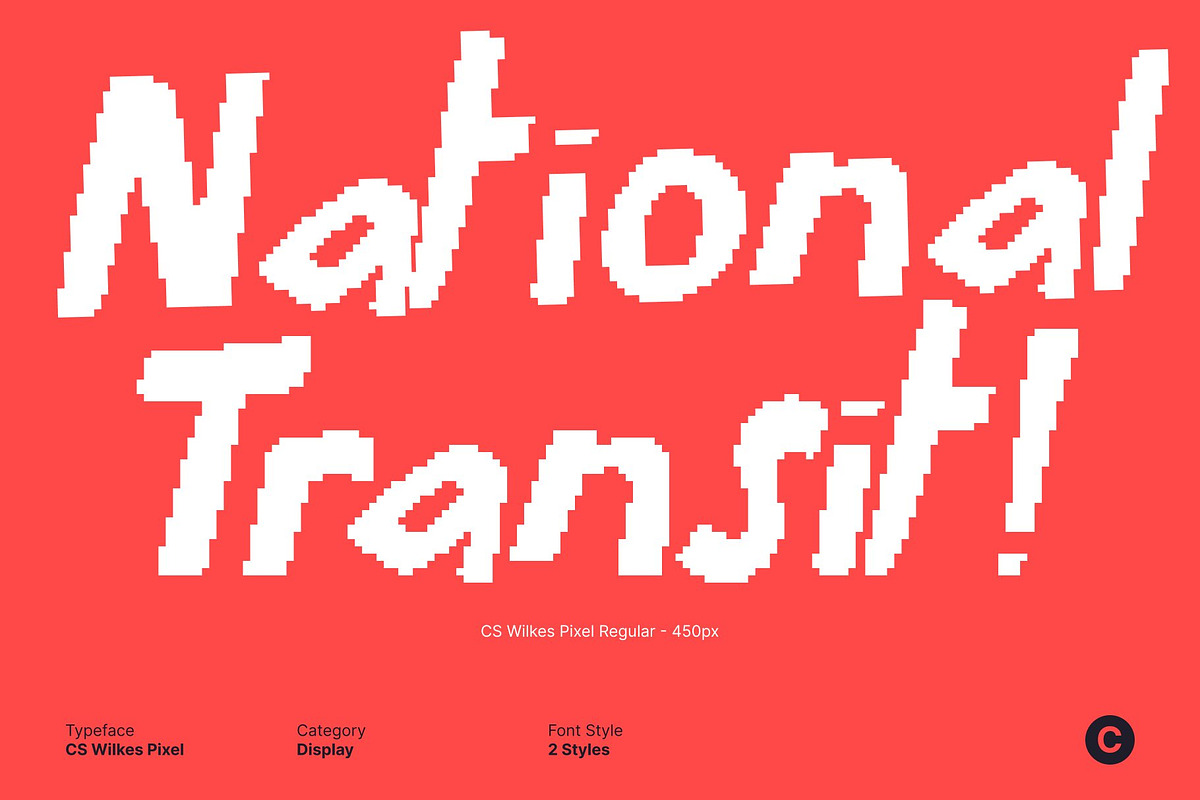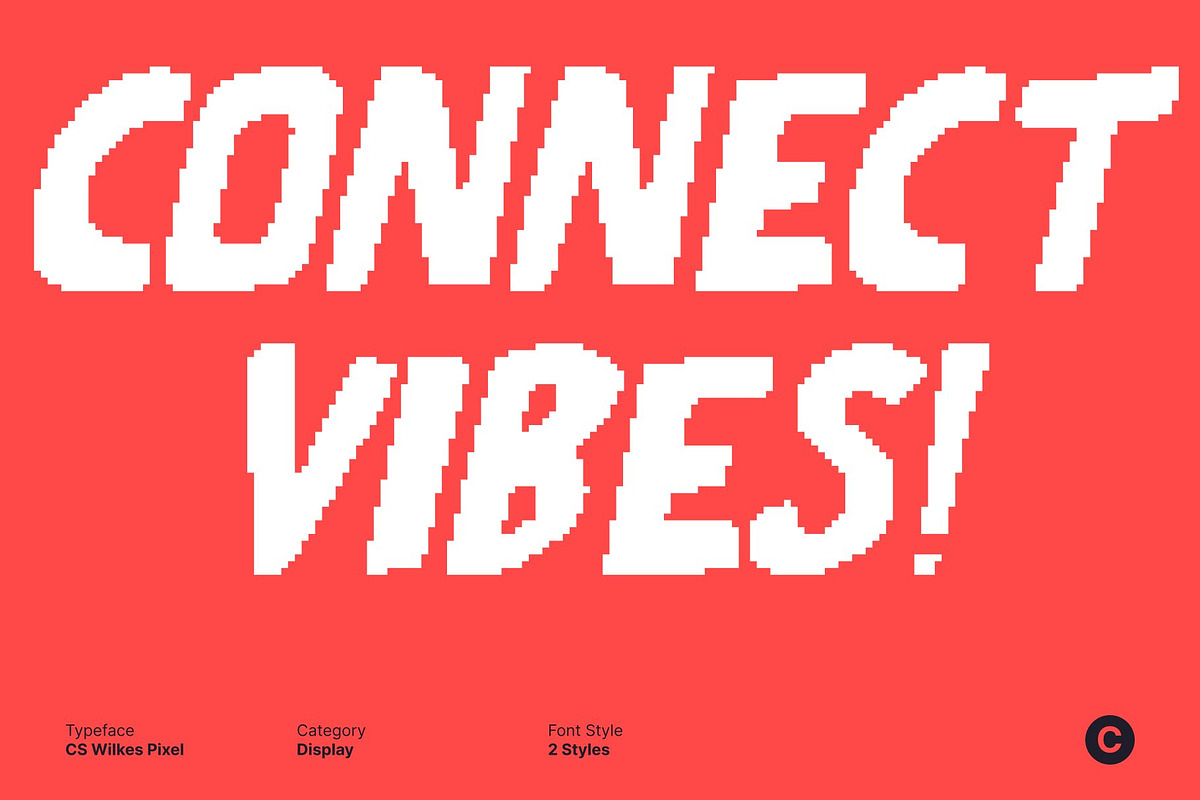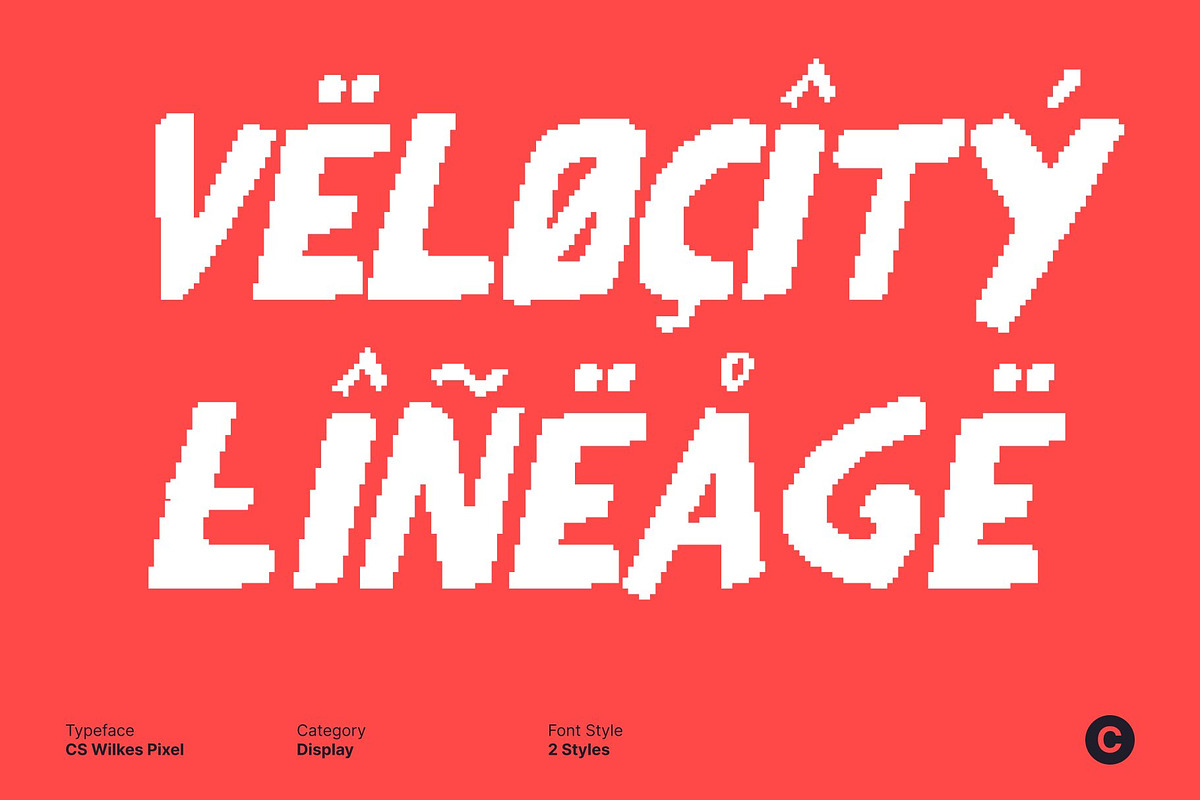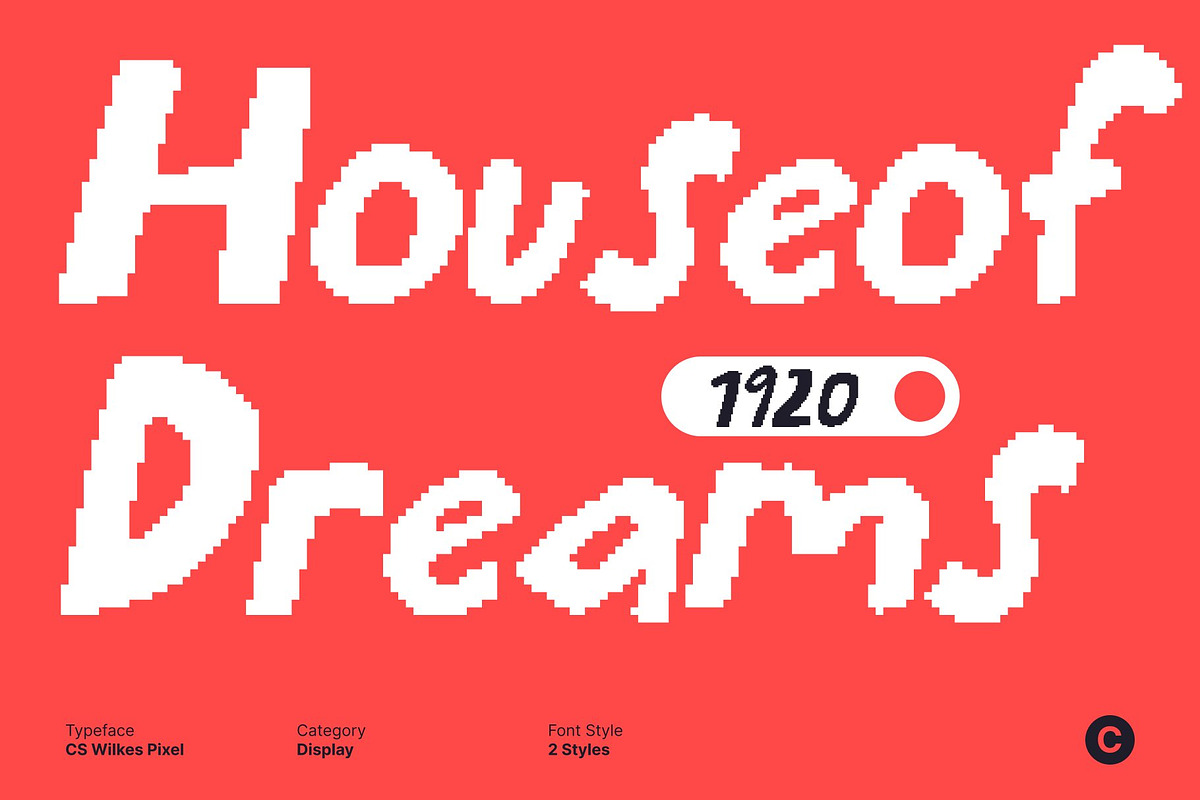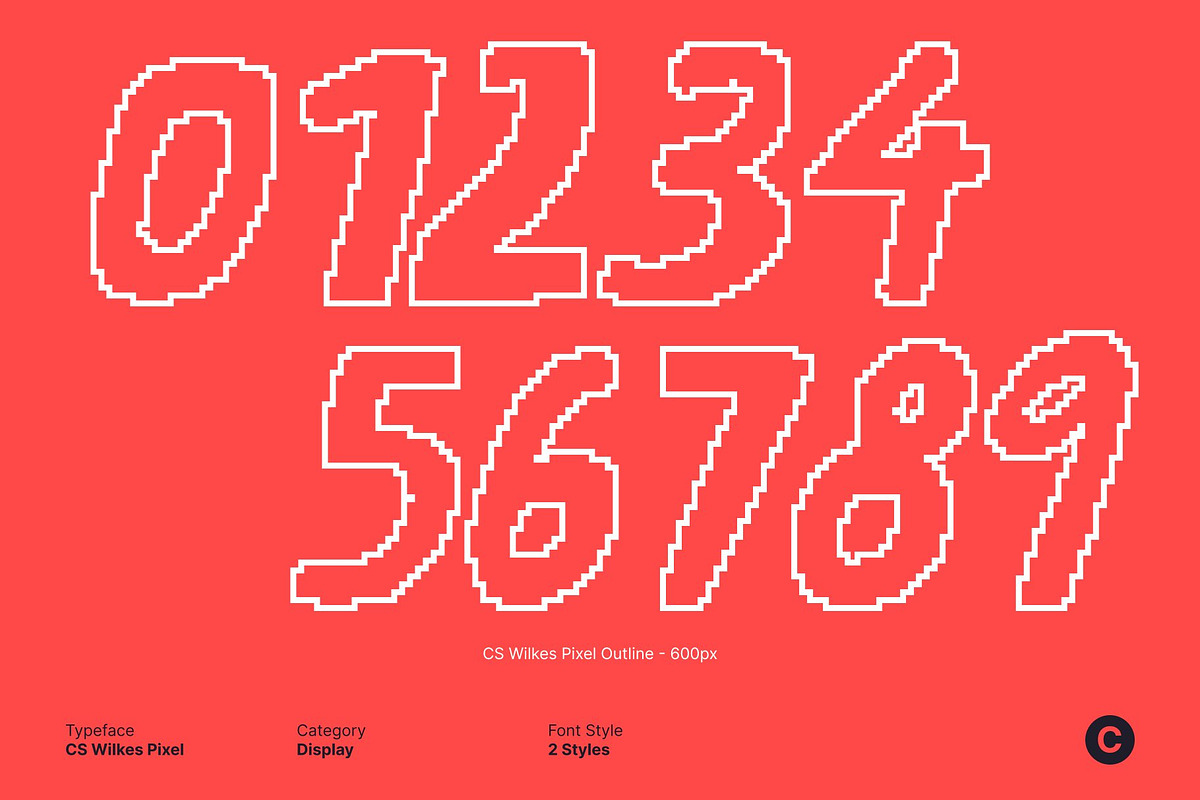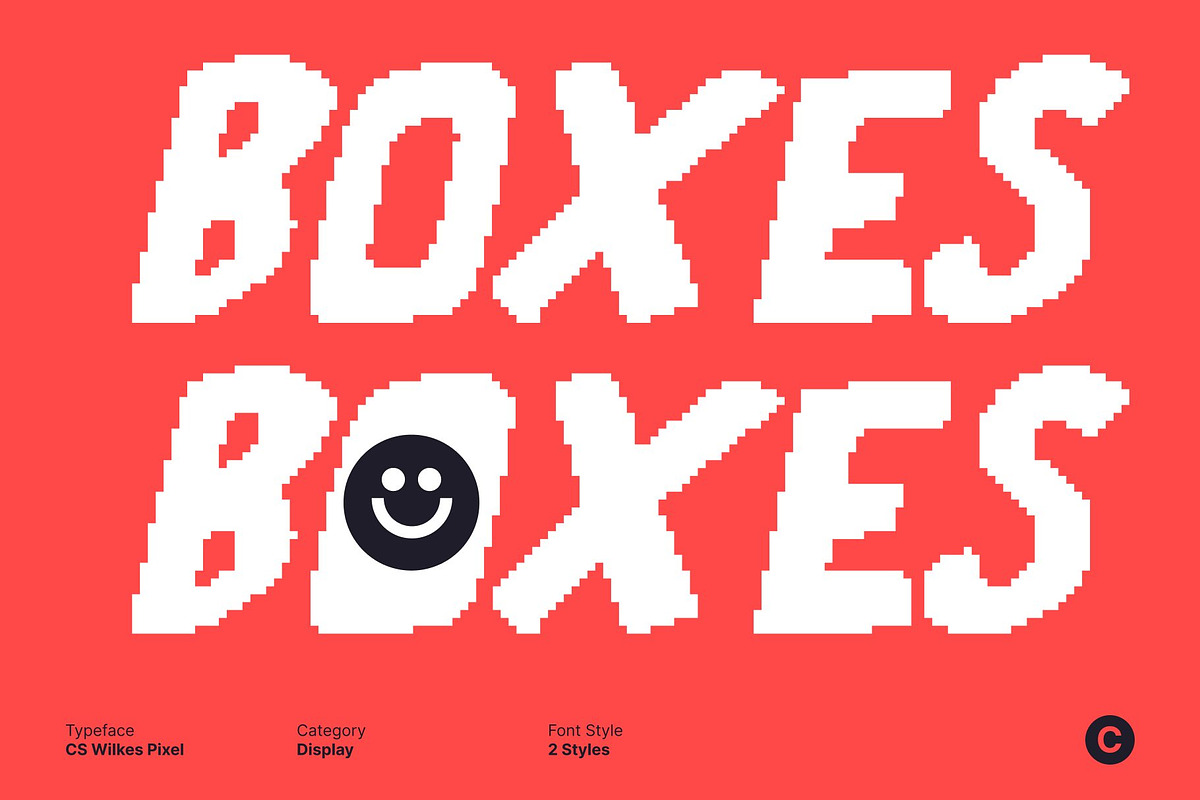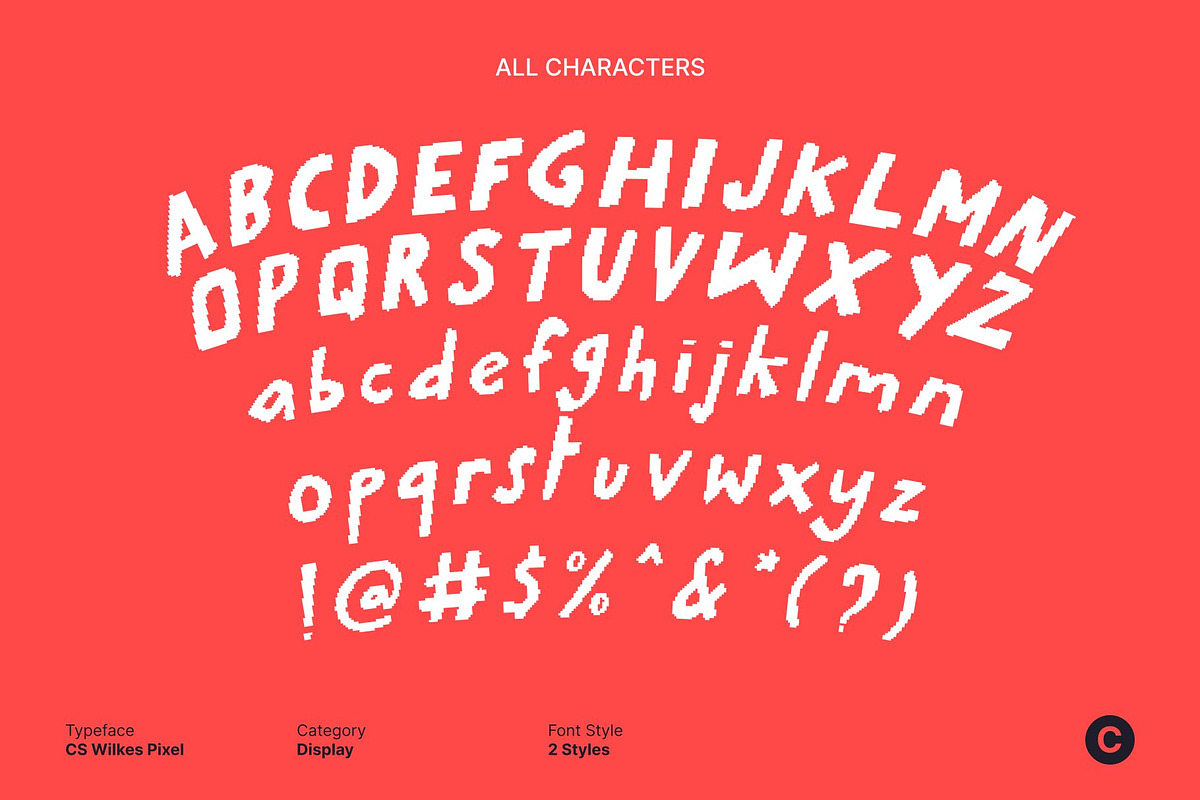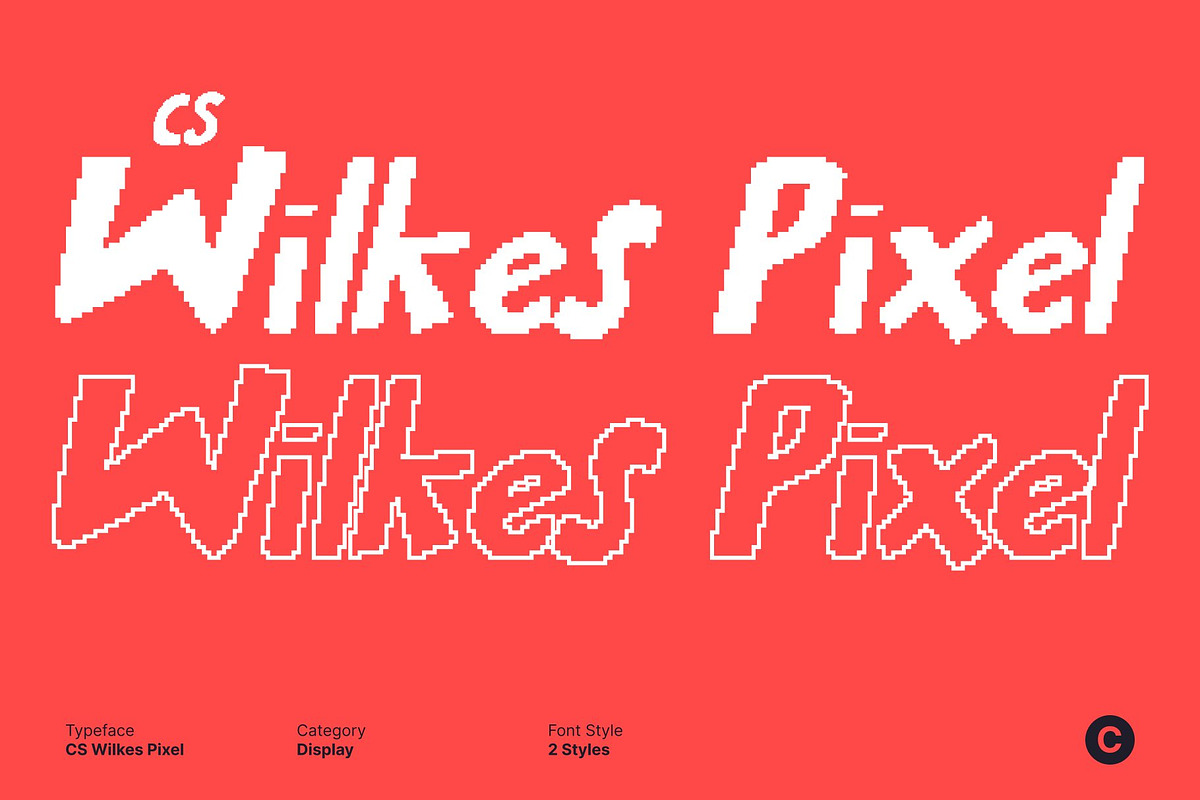
CS Wilkes Pixel
CS Wilkes Pixel – Fun Display Font with Quirky Charm
Playful Display Font with Pixel Personality This is a fun and energetic display font that radiates charm through its quirky, cute letterforms enhanced with subtle pixel-inspired details. Designed to capture a cheerful and imaginative spirit, it blends friendly shapes with a light digital edge, creating a look that feels both playful and contemporary.
Quirky Shapes with Pixel-Infused Balance Each character features soft curves and expressive forms, complemented by pixel accents that add texture and visual interest. The slightly imperfect yet balanced construction gives it a handcrafted feel, while the pixel structure introduces a modern twist. This harmony makes the font lively, warm, and visually engaging.
Perfect for Youthful and Creative Visuals From social media graphics and playful packaging to posters and children’s materials, this font adds a delightful spark of creativity. Its upbeat rhythm and inviting shapes make it ideal for projects that aim to feel modern, energetic, and full of personality.
Versatile for Fun, Friendly Branding Blending modern simplicity with whimsical energy, this font adapts effortlessly across a wide range of themes. Whether used for titles, headlines, logos, or merchandise, this font stands out with confidence while maintaining a friendly, inclusive, and joy-filled vibe.
- CS Wilkes Pixel Regular
- CS Wilkes Pixel Outline